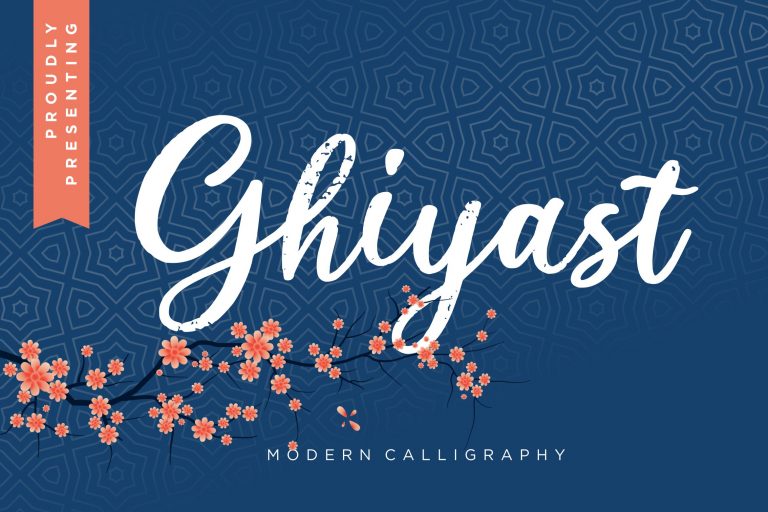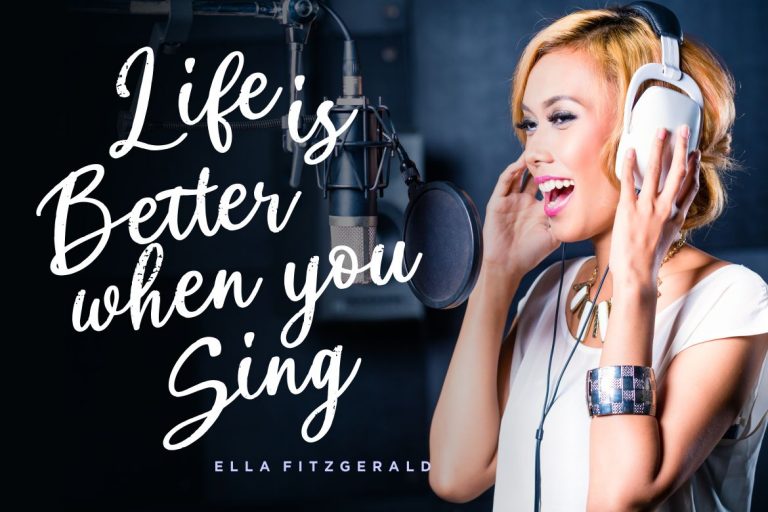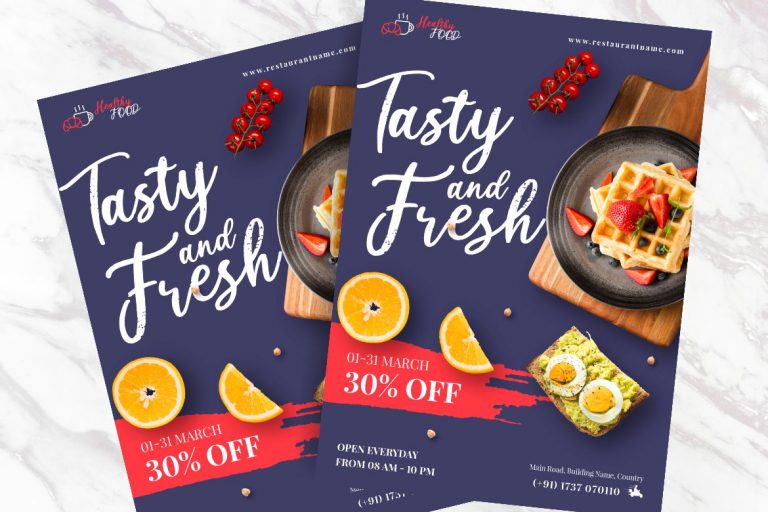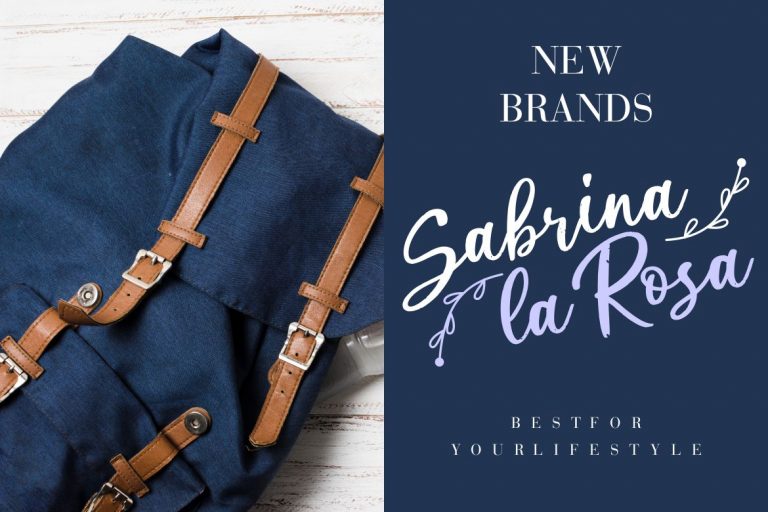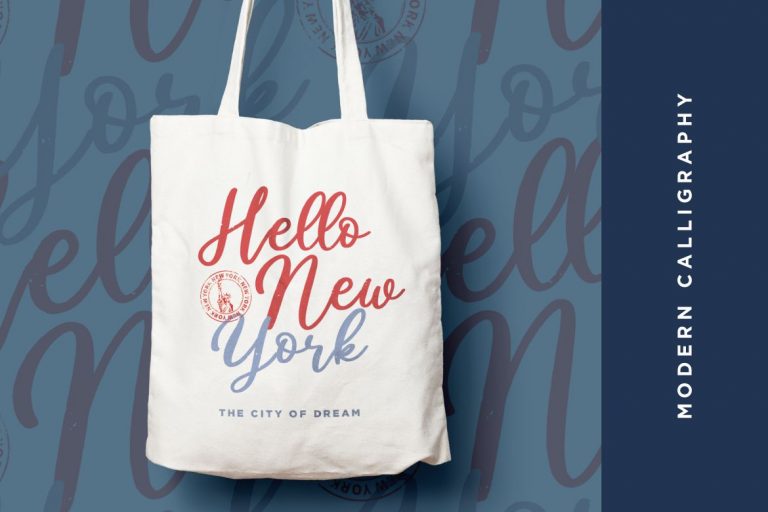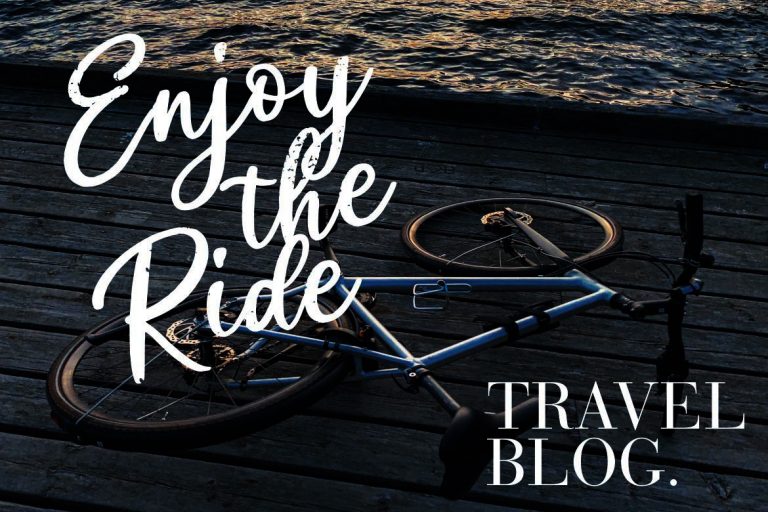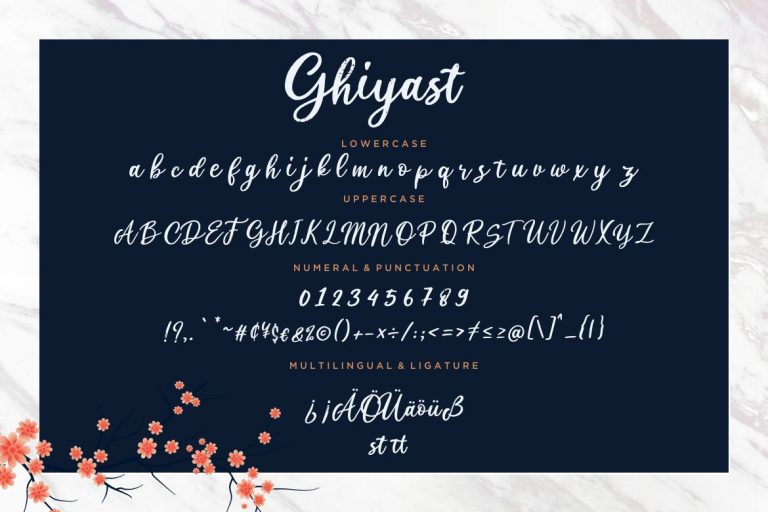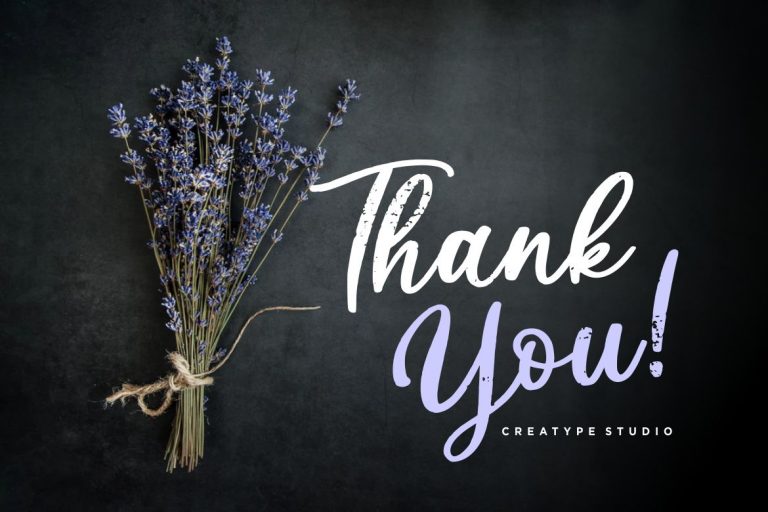
Ghiyast Modern Calligraphy
Ghiyast is a handwritten script font with modern calligraphy style that make your latest project awesome.
Ghiyast is perfect for branding projects, logo, wedding designs, social media posts, advertisements, product packaging, product designs, label, photography, watermark, invitation, stationery and any projects that need handwriting taste.
• Standard glyphs
• Ligature
• Fonts include multilingual support for; ä ö ü Ä Ö Ü ß ¿ ¡